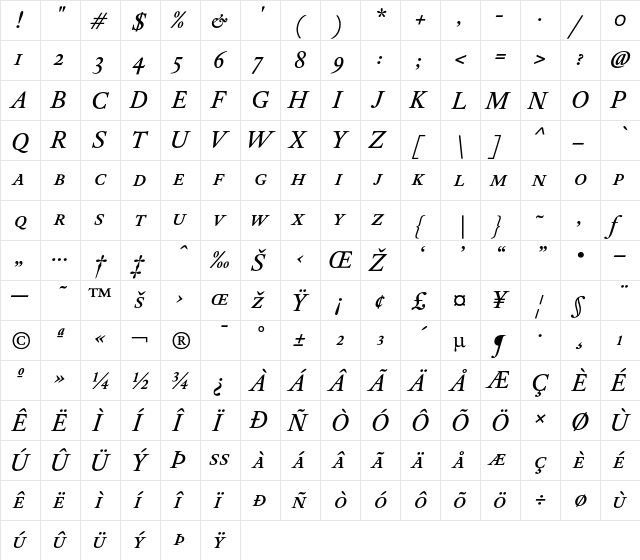
DTLElzevirTCapsMedium Italic
Design Context for DTLElzevirTCapsMedium Typeface
DTLElzevirTCapsMedium is a composed and adaptable typeface that performs quietly and consistently across a wide range of design contexts. Its italic angle brings a sense of urgency and motion to the letterforms.
Pro Tip: Use DTLElzevirTCapsMedium for emphasis, pull quotes, and subheadings where its slanted energy can add rhythm to the layout.